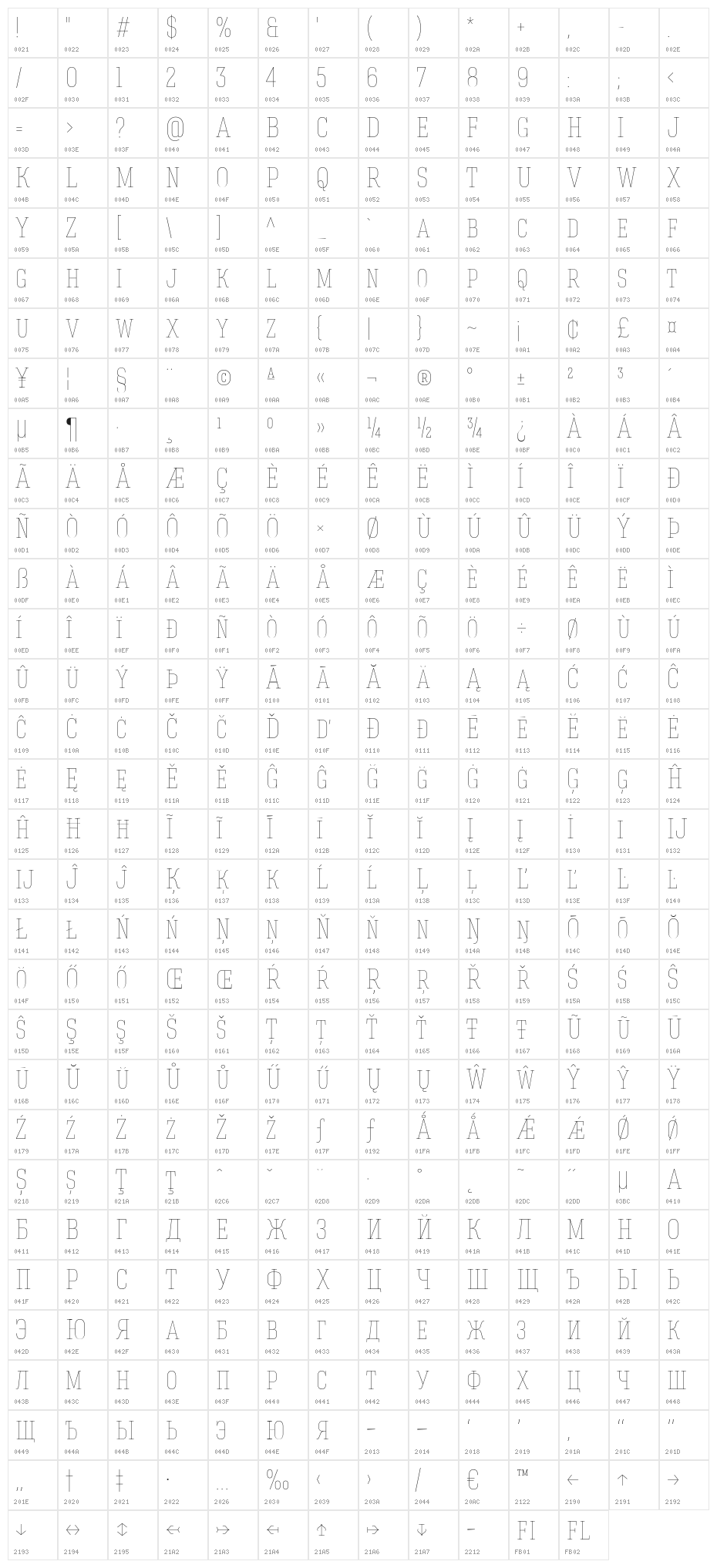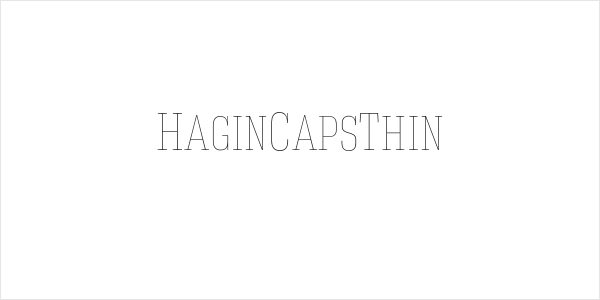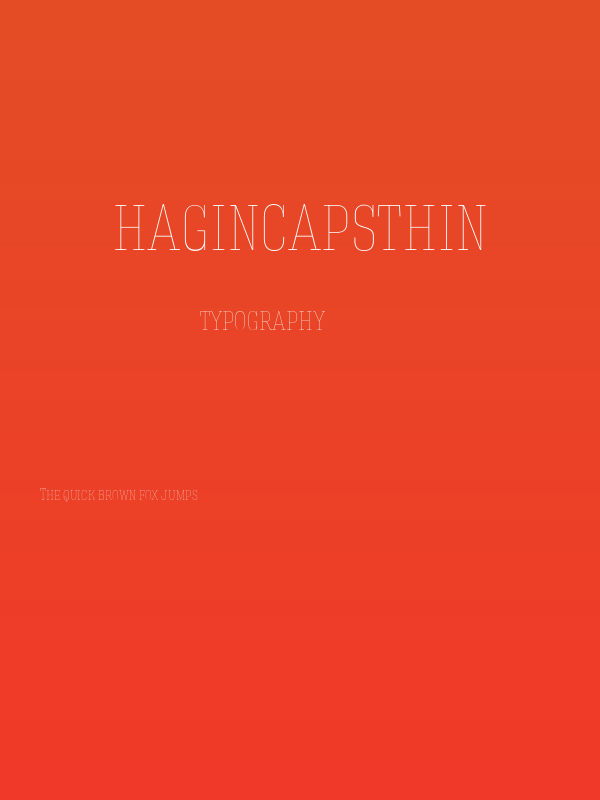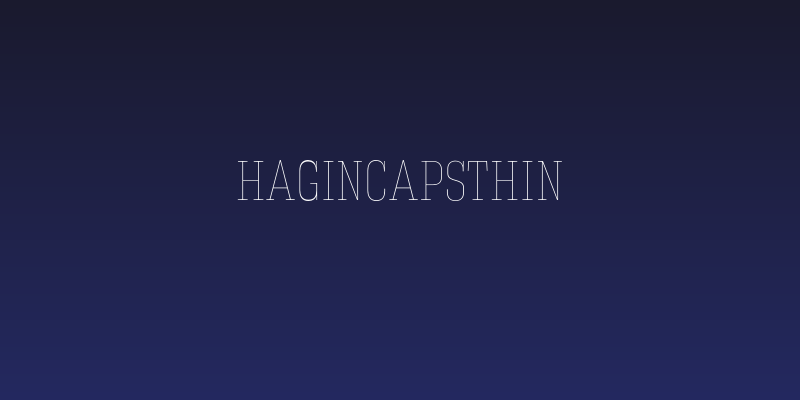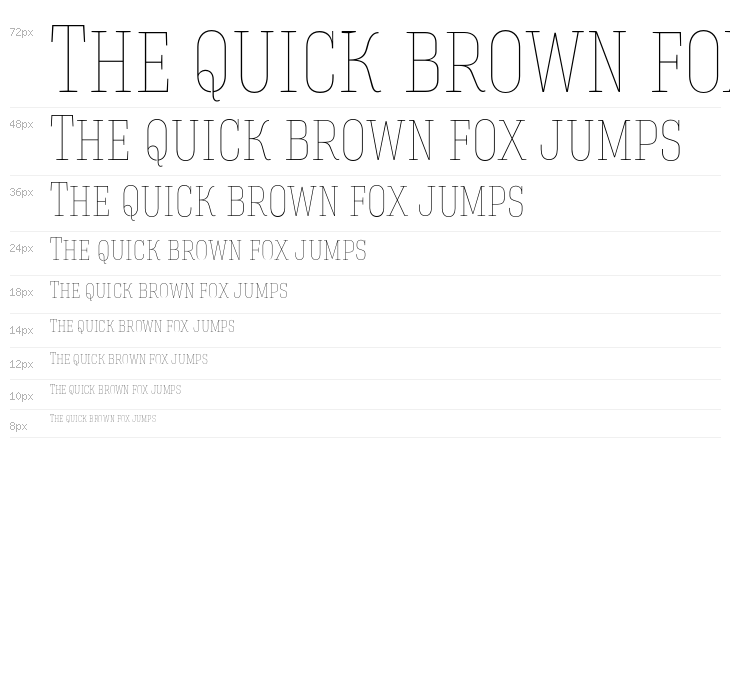
HaginCapsThin Font
HaginCapsThin Description
This font features a sleek, thin design with a modern and elegant aesthetic. The characters are tall and narrow, with a consistent stroke width that gives it a refined and sophisticated appearance. The uppercase letters are particularly striking, with clean lines and a geometric feel. The numerals and special characters maintain the same thin, precise style, ensuring a cohesive look across all text. This font is ideal for projects that require a touch of class and modernity.
| Proposed Projects | Ideal for luxury branding, fashion magazines, elegant invitations, and minimalist design projects. |